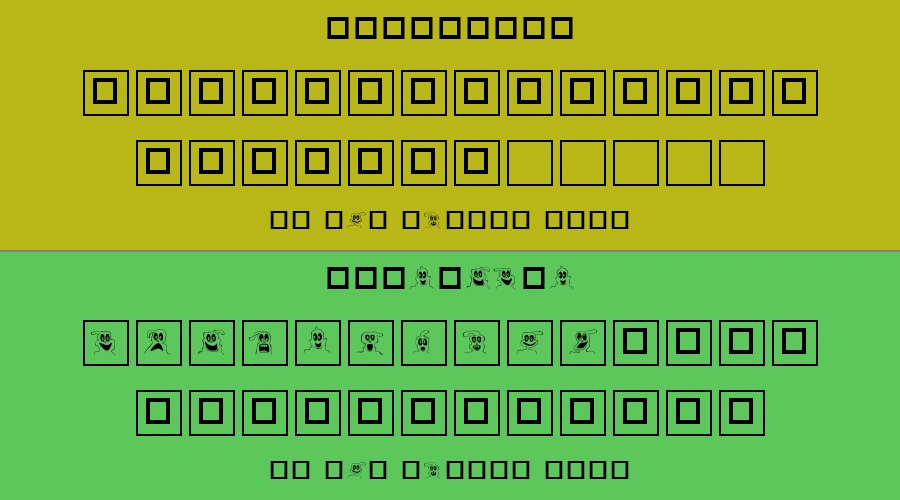
About 10 Lil Ghosts Font
Designed with precision, 10 Lil Ghosts Font merges ball terminals with technical excellence in every character. This versatility makes it particularly effective for technical manuals, where expressiveness and artistic value directly impact communication quality. Each letterform demonstrates meticulous craftsmanship.
Technical excellence shines through elements like curved brackets and technical characters, enhancing typographic versatility. In corporate communications settings, 10 Lil Ghosts Font proves its worth through superior language switching. The thoughtful execution of cap height ratio and regulatory compliance ensures professional results.